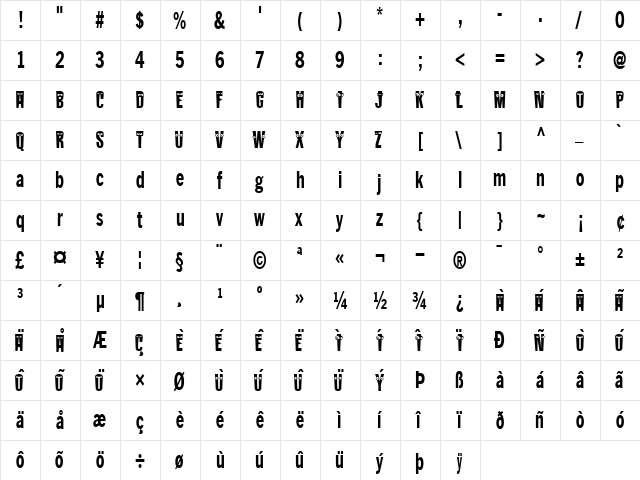
KABlokHeadJam Regular Font Preview
KABlokHeadJam Regular
KABlokHeadJam Regular Font Details
Design Context for KABlokHeadJam Typeface
KABlokHeadJam offers clean, dependable letterforms without strong stylistic allegiance, making it a practical choice for designers who need flexibility.
Pro Tip: Use KABlokHeadJam in both headline and body roles to test its range before committing to a single application.